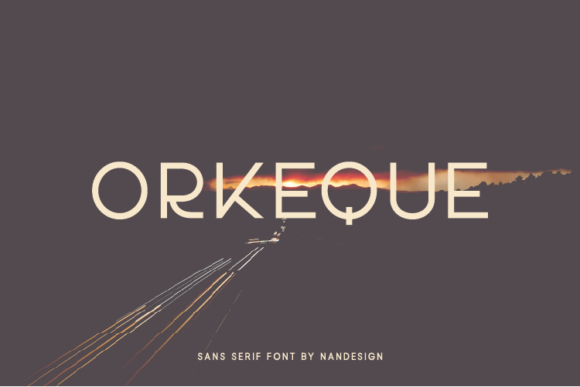
Orkeque Font: The Sans Serif Font That Complements Your Creative Vision
In the realm of typography, Orkeque Font stands tall as a sans serif masterpiece, a creation of Nan Design that's poised to elevate your designs to new heights. Its clean lines and simple letterforms exude a timeless elegance, making it the perfect choice for a wide range of projects, from striking headlines to captivating logos.
Orkeque Font: A Timeless Treasure for Your Design Arsenal
Orkeque Font is a versatile font that effortlessly adapts to various design styles. Its clean and crisp appearance lends a touch of sophistication to any project, while its subtle curves add a hint of playfulness. Whether you're designing a sleek website, a captivating poster, or an eye-catching social media campaign, Orkeque Font will seamlessly blend in, enhancing your message with its understated charm.
Orkeque Font: The Perfect Choice for Packaging Design
In the competitive world of product packaging, Orkeque Font emerges as a powerful tool to make your products stand out on the shelves. Its bold and legible letterforms ensure that your brand message is conveyed clearly and effectively, while its understated elegance adds a touch of luxury and sophistication.
Orkeque Font: Your Gateway to Creative Expression
With Orkeque Font as your creative companion, the possibilities are endless. Let your imagination soar as you craft stunning invitations for special occasions, design logos that leave a lasting impression, or create social media posts that captivate your audience. The versatility of Orkeque Font empowers you to bring your creative vision to life, leaving an indelible mark on the minds of your customers.
Orkeque Font: A Font That Inspires
Orkeque Font is more than just a collection of letters and symbols; it's an invitation to explore the boundless realm of creativity. Its clean lines and simple letterforms provide a solid foundation for your designs, allowing you to build upon them and create something truly extraordinary. Whether you're a seasoned designer or just starting your creative journey, Orkeque Font will ignite your imagination and inspire you to produce designs that leave a lasting impact.